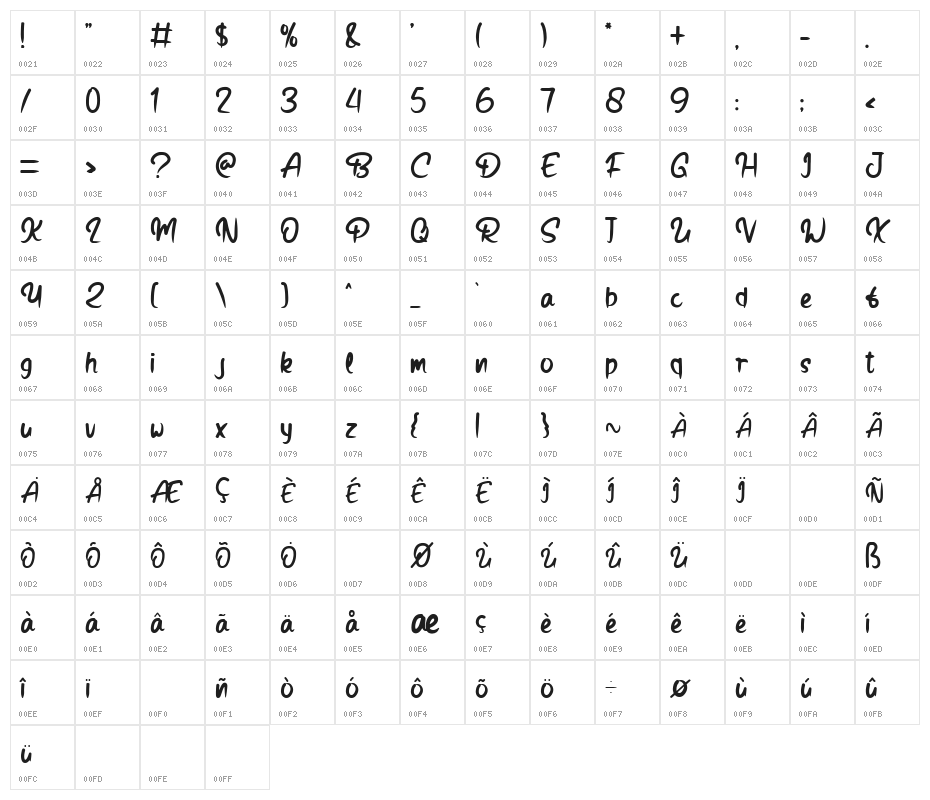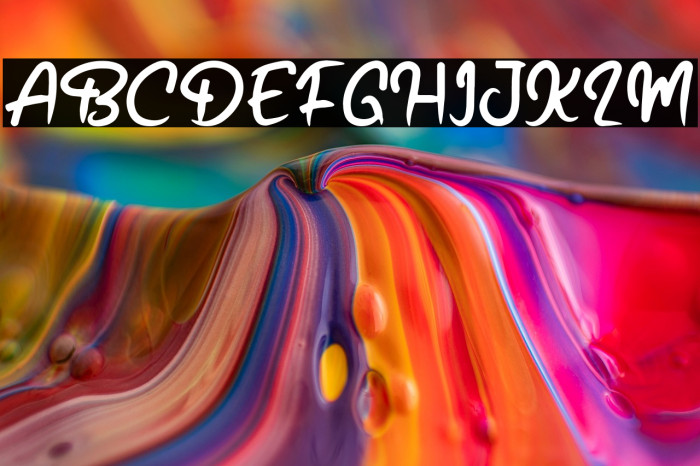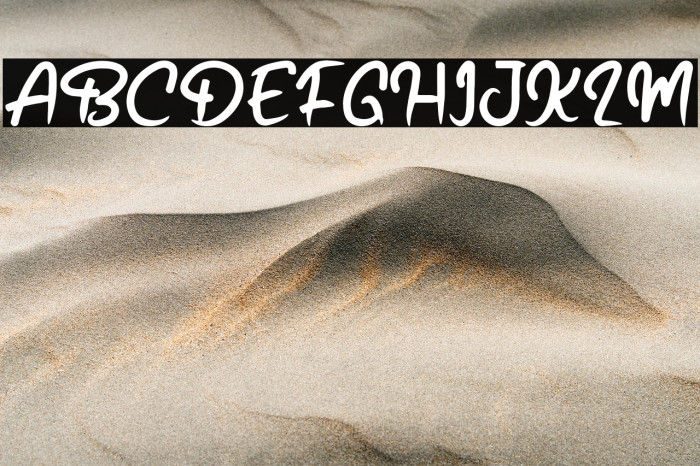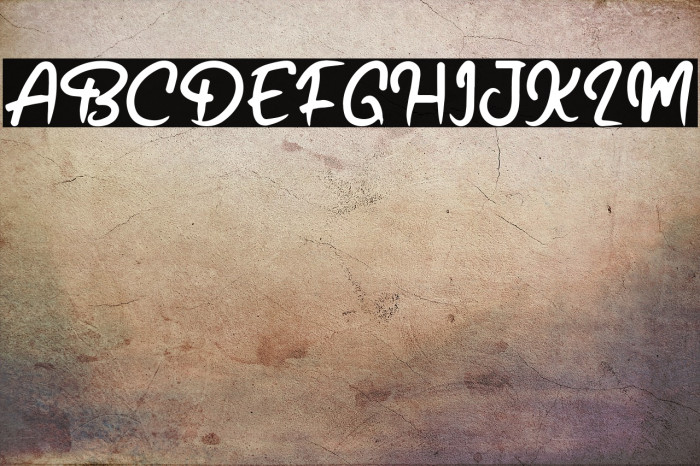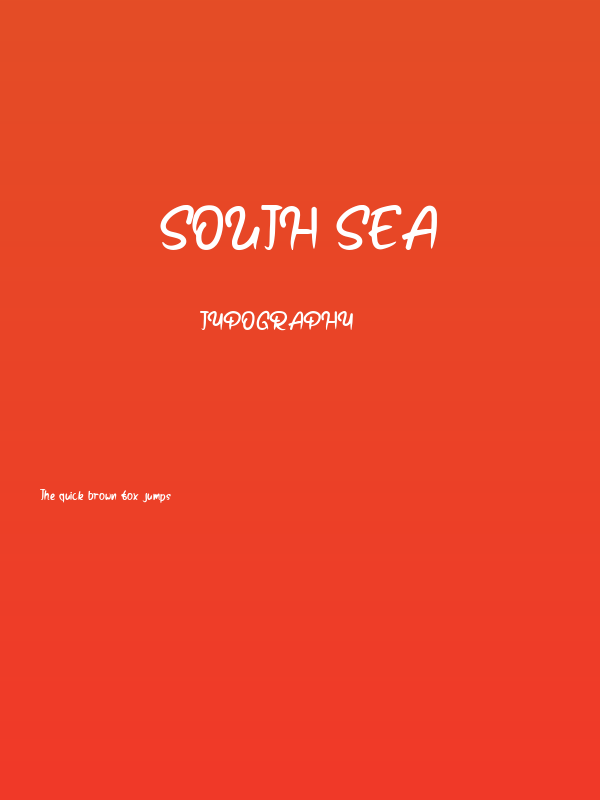
South Sea Font
South Sea Description
This font features a playful and casual script style, characterized by its smooth, flowing curves and slightly irregular strokes. The letters are connected in a way that mimics natural handwriting, giving it a personal and informal feel. The uppercase letters are bold and prominent, while the lowercase letters maintain a consistent flow, enhancing readability. The numerals and special characters are designed to match the overall style, maintaining the same playful and dynamic appearance. This font is ideal for projects that require a friendly and approachable aesthetic.
| Proposed Projects | Greeting cards, invitations, personal branding, social media graphics, and children's book covers. |